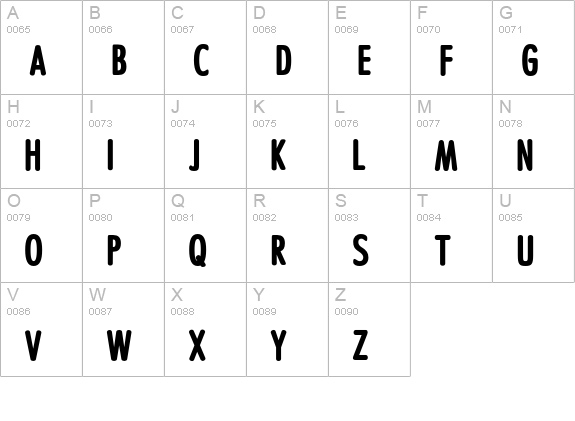
Bouncer Bold is a strong, high-contrast variant in the Bouncer typeface family \xE2\x80\x94 well suited to headlines, attention-grabbing titles, and strong calls-to-action.
Bouncer Bold font is a modern and bold typeface that exudes strength and confidence. Its thick, eye-catching letters make a statement while maintaining a clean and sleek appearance. Perfect for headlines, logos, posters, and more, this versatile font will grab attention and leave a lasting impression. The best part? Bouncer Bold font is available for free download at FontsMarket.com. Whether you're a designer looking to add a bold touch to your projects or a business owner seeking a striking visual identity, this font is the perfect choice. Download Bouncer Bold today and make your designs stand out effortlessly.